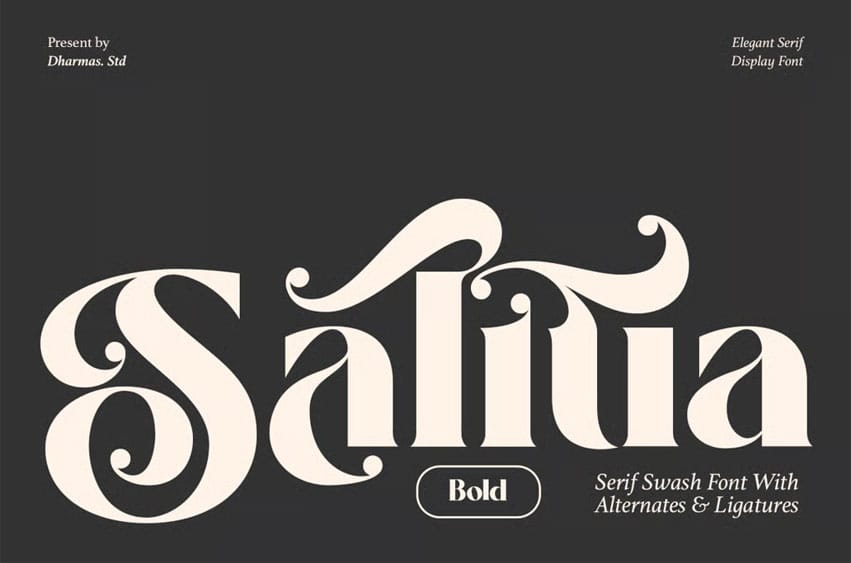
Salitia Bold Font is a powerful serif typeface designed for modern corporate branding and professional design needs. With its bold weight and tightly spaced vintage-inspired serifs, this style brings structure, confidence, and elegance into every layout.
Packed with over 175+ stylish ligatures and alternates, Salitia Bold is ideal for logos, business presentations, editorial headlines, packaging, websites, and any project that calls for a bold yet refined serif display.
- 175+ Special Alternates and Ligatures